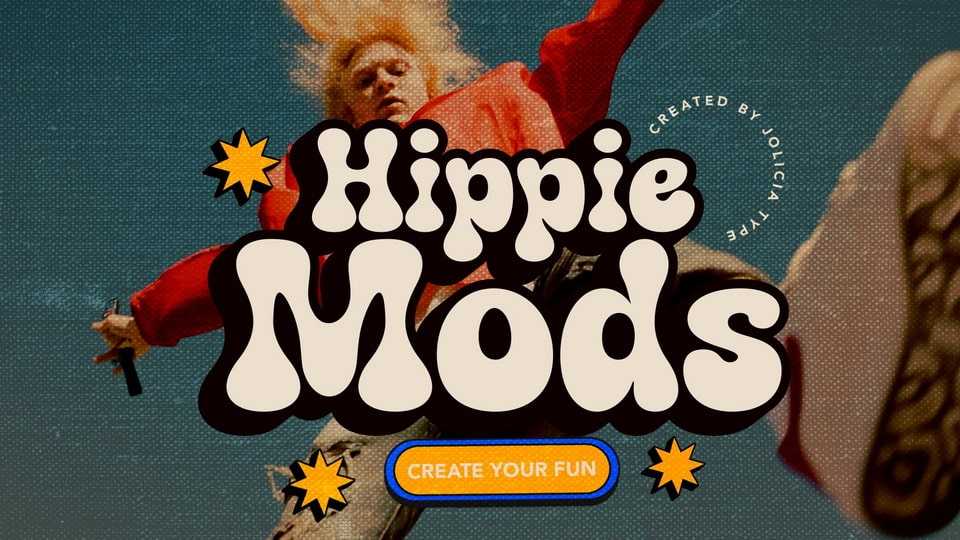
Download Hippie Mods font, a typeface that takes you back to the psychedelic era of the 1960s and 70s. This fun and retro typeface is a true embodiment of the free-spirited movement, peace and love, capturing the essence of the countercultural revolution in its design